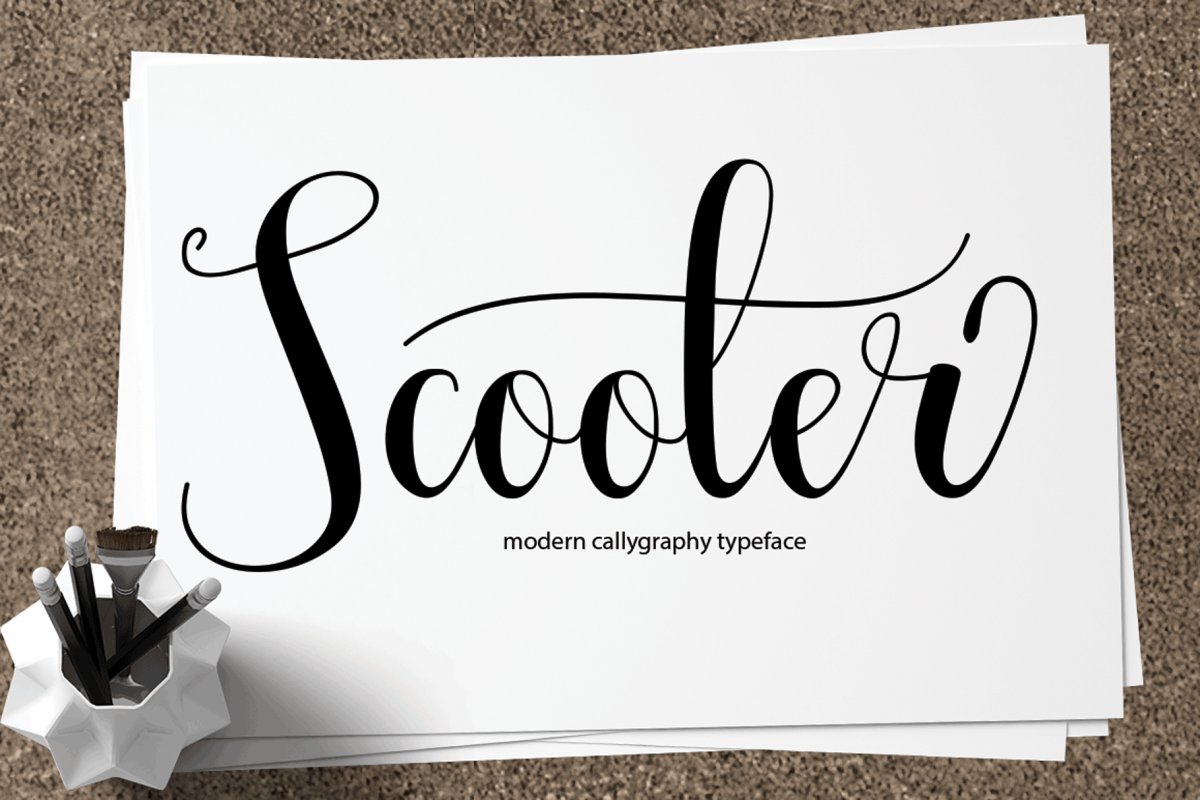
Scooter
Scooter Modern Calligraphy. This font was designed by handwriting, and it has a modern and unique forms of calligraphy, the writing style is very natural.
The Features of this fonts is;
* Standart ligatures
* Stylistic Alternates
* Contextual Alternates
* Stylistic sets